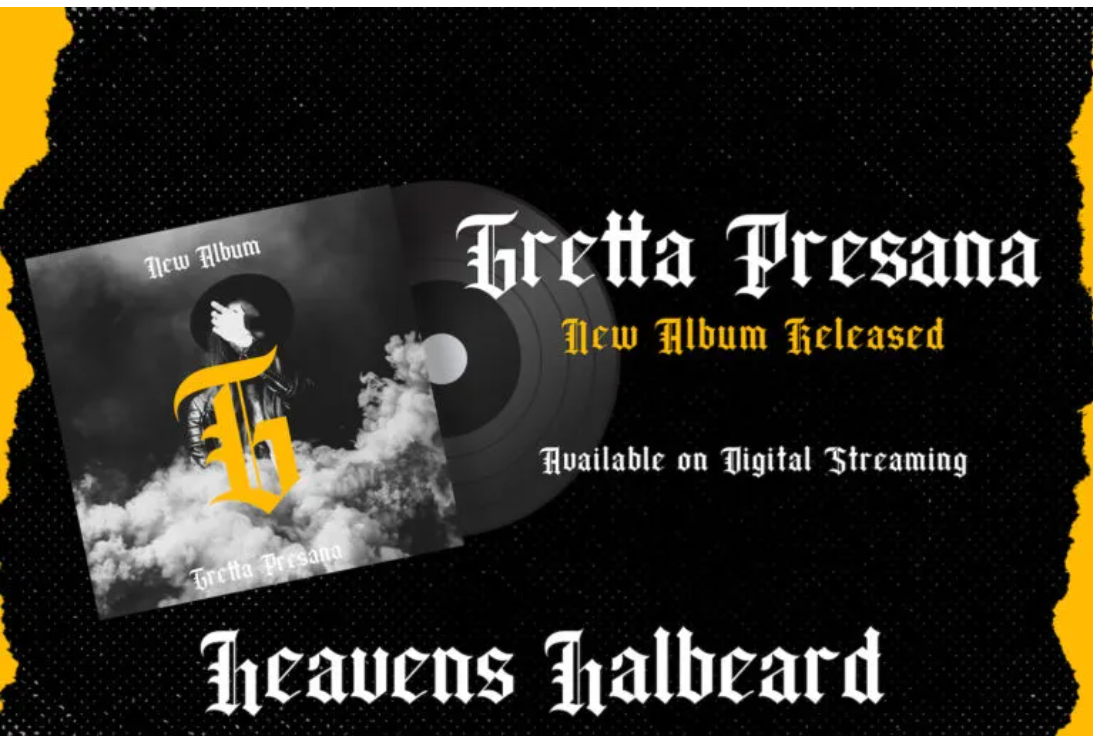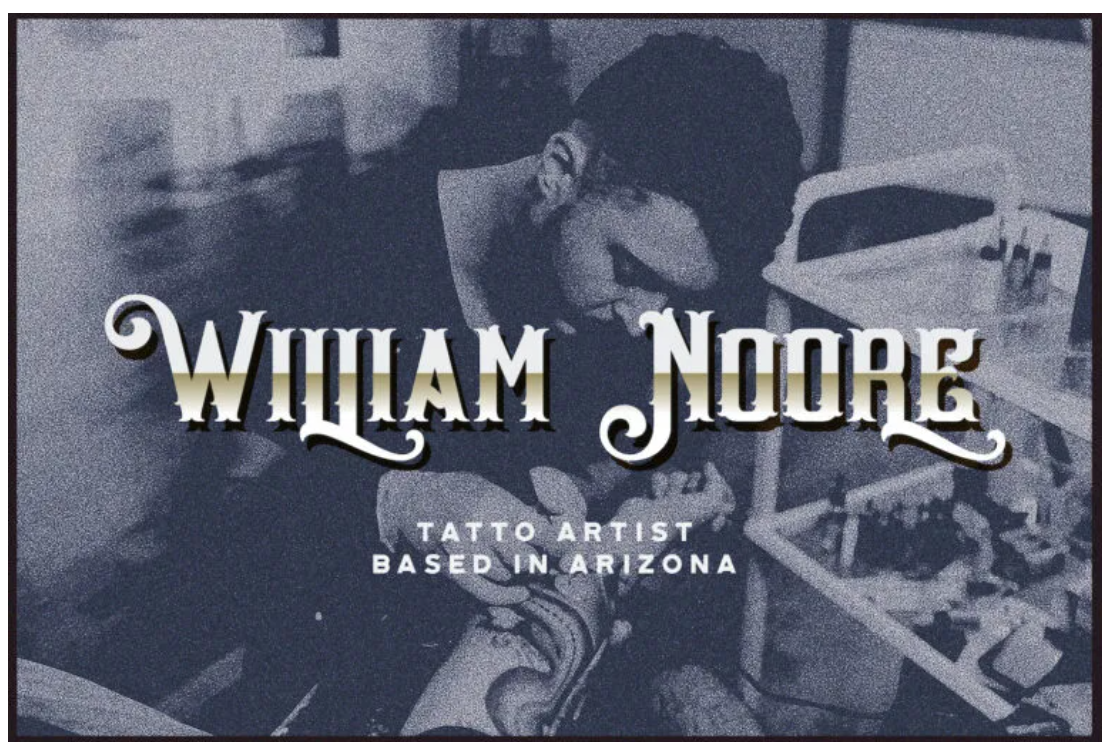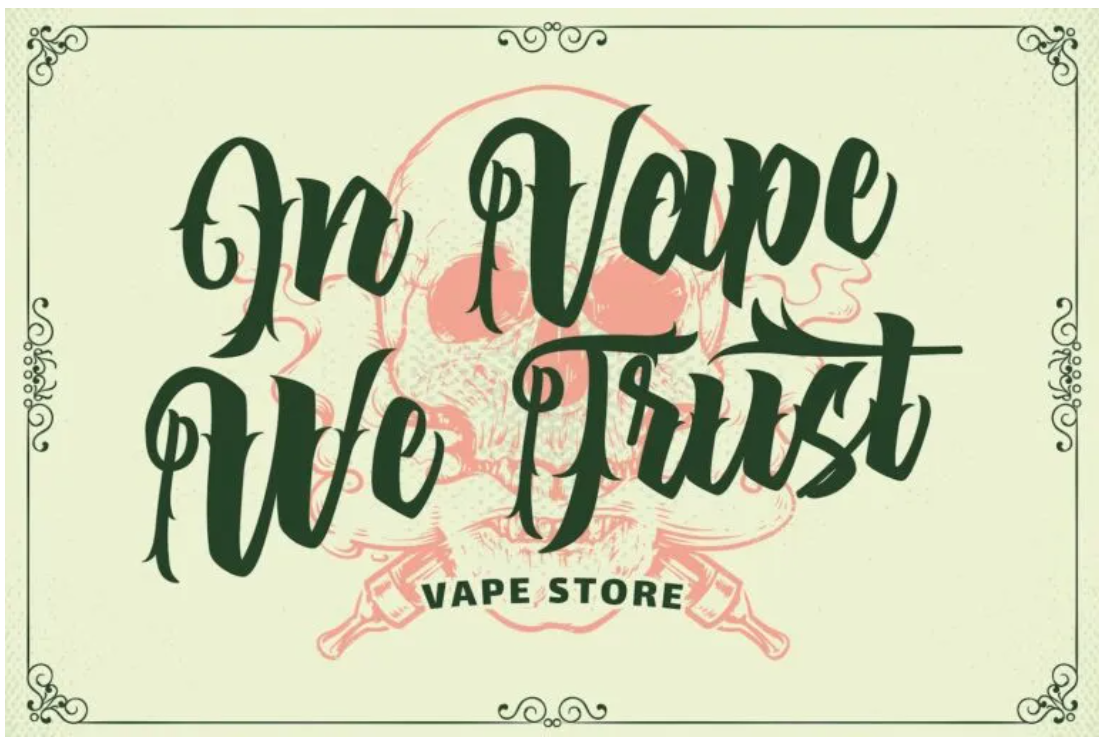
Achieve Business Successfully: 4 Best Gothic Font Options to You!
Obviously, in business, we frequently face a variety of challenges. Being a business owner requires you to rack your intellect to grab your consumer’s attention. Creating a unique and attractive brand visual appeal from competitors is a must. For example, a Gothic font could be the best choice for your business’s main face.
Choosing a font for business design is essential. Therefore, we list some of the greatest Gothic typefaces in various styles. Scroll down to know more!
4 Best Gothic Font Options for Your Business
Struggling to choose the best font for your business? The Gothic font by Blackletter could help your problem. However, each Gothic typeface has distinctive characteristics. Without further ado, let’s look at the top four Gothic typefaces!
1. Hellios Gothic
Hellios Gothic
Hellios Gothic is one of the genuine and courageous Blackletter fonts. It has excellent qualities that will make your design stand out. The font provides uppercase and lowercase, making it different from the others. Most business owners use this font for writing the names of the products’ people, places, or brands.
Some businesses that would benefit from employing this typeface include:
• Tattoo artist
Hellios Gothic
Hellios font will give your brand a more fierce visual appearance. When you see a tattoo artist’s logo, it usually gives you an intense sensation. This is going to ignite your customers’ attention.
• Handmade Crafted
Hellios Gothic
Do you have a handmade crafted business? If so, Hellios is your best friend! You can use the Hellios typeface as your business font. Type the name of your shop using the ligature and alternate feature. The font’s unusual form will draw in your potential clients!
2. The Lastring
The Gothic, vintage, and retro combination can be found in The Lastring Gothic font. This font uses a tattoo as the style. The font’s themes signify fancy, elegant, creative, cool, and unusual, which could be the best option for Gothic lovers. You can apply this font to your business products, such as:
• Matches
The Lastring
With its Gothic solid font shape, products like matches will create the best representation of strong and bold images.
• Vape Store
The Lastring
Vapers will interested your vape store once you present your brand using The Lastring font. Furthermore, each line of the alphabet’s little brush forms a distinct letter.
3. Livingstone
Livingstone
One of the best unique and decorative Blackletter fonts is Livingstone. The typeface shows a striking shape. Something fascinating will intrigue people to have curiosity. The typeface has a straightforward installation process, so you will not be puzzled about how to use it. One of the suitable businesses for using this font in specific is:
• Resto and Bar
Livingstone
Restaurants and bars to satisfy your stomach and heal a shattered heart will undoubtedly entice you with their spectacular aesthetics. To attract customers, using a unique typeface like Liverstone will boost your business.
• Apparel
Livingstone
Not only for restaurants, the font is also great as an apparel motive. Therefore, you may attract more customers to buy your products.
4. Wilson Wells
Stunning font to gain more customers? Wilson Wells has the answer. Yes! They provide exclusive and decorative fonts, similar to a Gothic metal font. Specifically, a font metal Gothic can be used as the alternative to Wilson Wells. However, it depends on the purpose of the usage. Therefore, you may apply this font following:
• Barbershop
Wilson Wells
A business like a barbershop tends to make you more creative, especially in selecting the font for the shop’s name. Do not worry because Wilson Wells produces a fantastic visual for the logo of your barbershop!
• Album Cover
Wilson Wells
Like the font metal Gothic, Wilson Wells is well-matched for album cover. The stylistic alternates and ligatures assist in decorating the album’s cover like the metal music genre.
Geared Up to Transition into the Consumer’s Favourite Brand?
You may notice that each Gothic typeface has a unique style. They all give a powerful sensation as their name, Gothic or mysterious, and became their typical feature. Besides, the bold line leads to the attractiveness to the potential customer. Nevertheless, it does not make it frightening but instead draws attention.